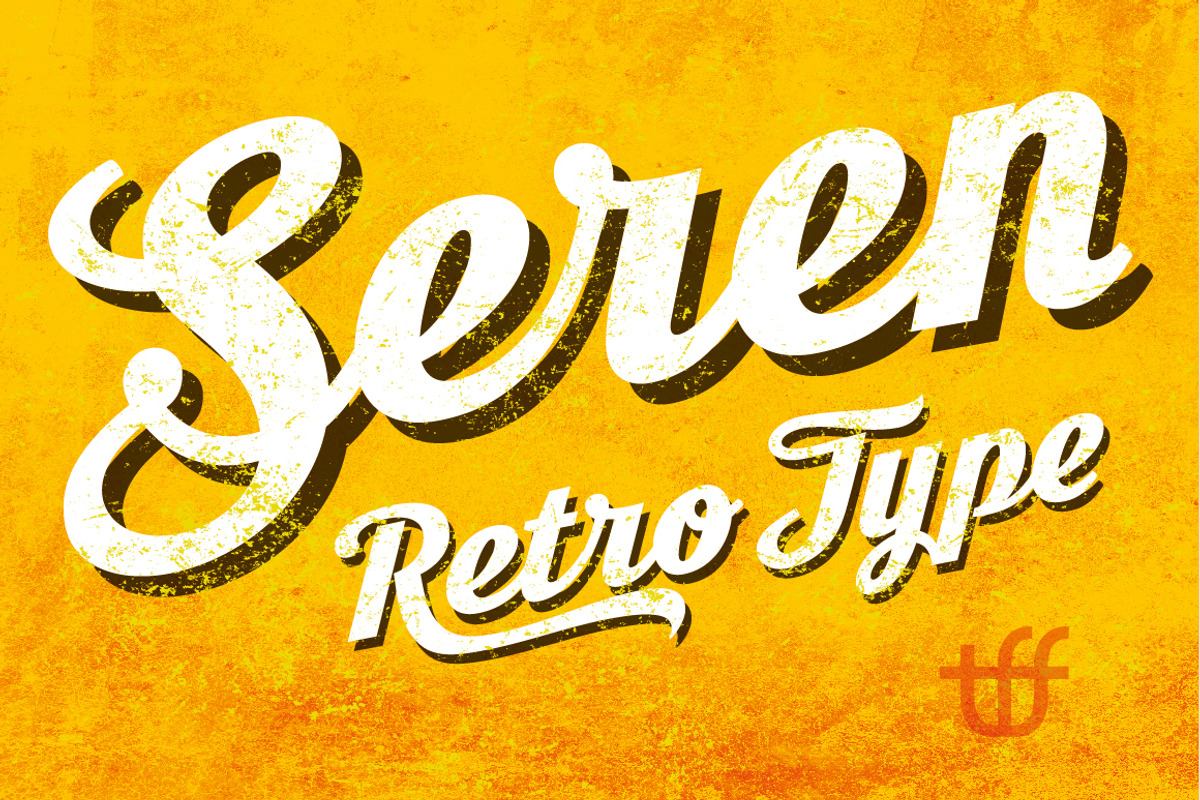
Seren Script Font Free Download is an elegant and flowing typeface that exudes sophistication and charm. With its graceful curves, natural strokes, and beautiful letterforms, this script font is perfect for wedding invitations, branding, social media graphics, logos, and any project that requires a personalized, handwritten feel.
Whether you're designing for a luxury brand, creating romantic invitations, or adding elegance to a logo, Seren Script brings beauty and grace to your typography. It’s the ideal font for designers looking to add a touch of refinement and class to their work.